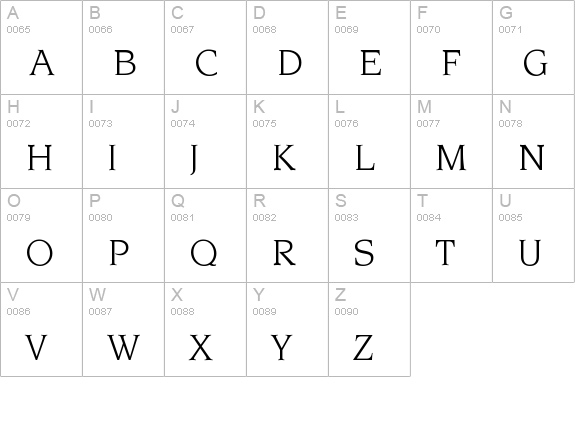
Trident SSi is an exquisite font that effortlessly combines elegance with a touch of modernity. Its sleek and sophisticated design is perfect for a wide range of creative projects, from branding and advertising to invitations and packaging. With its clean lines and balanced letterforms, Trident SSi adds a sense of professionalism and refinement to any project. What makes Trident SSi even more appealing is that it is available for free! That's right, you can easily download this stunning font at FontsMarket.com without spending a dime. This means that you can elevate your designs without breaking the bank. Whether you're a professional graphic designer or a hobbyist, Trident SSi offers endless possibilities. Its versatility allows it to be used in various design styles, making it a go-to choice for both formal and informal projects. The clarity of its characters ensures legibility at any size, while the subtle details add a touch of personality. Trident SSi's extensive character set includes uppercase and lowercase letters, numerals, punctuation marks, and special characters, providing you with all the tools you need to create captivating and visually appealing designs. Its smooth curves and well-defined shapes make it a joy to work with, allowing your creativity to flow effortlessly. So, what are you waiting for? Don't miss out on this amazing opportunity to enhance your design projects with Trident SSi. Head over to FontsMarket.com and download this incredible font for free. Elevate your designs and leave a lasting impression with Trident SSi, the font that effortlessly blends elegance and modernity.